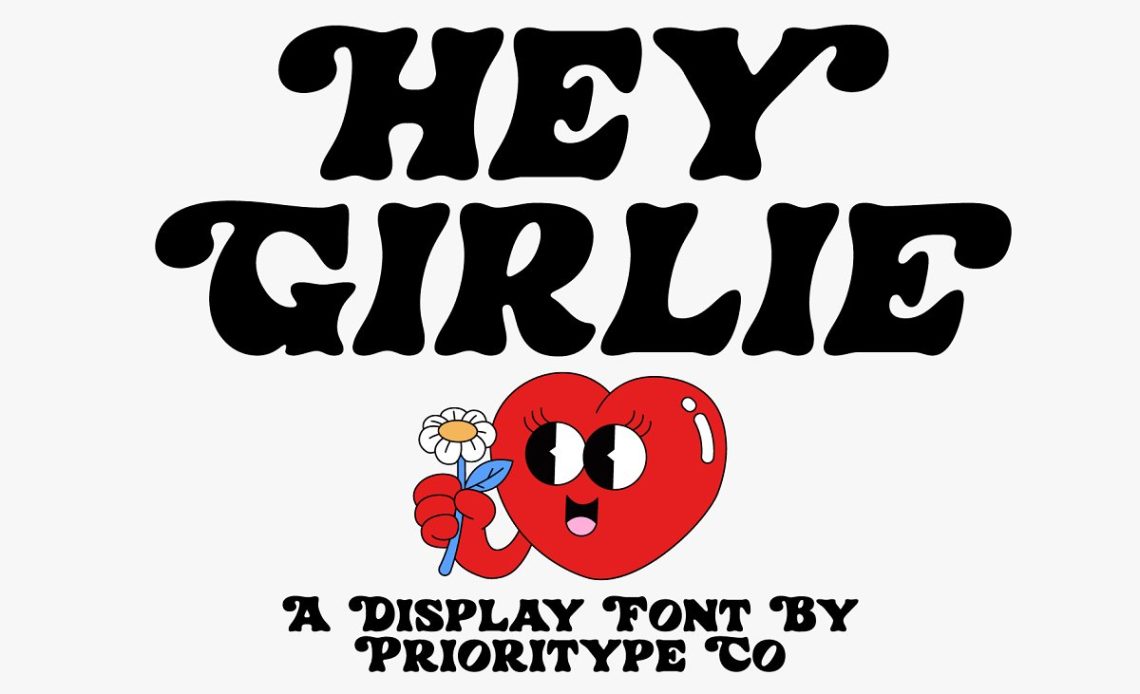
Introducing Hey Girlie - Display Font, the perfect font for logotypes, merchandise designs, posters, titles, stickers, and more. This eye-catching serif font, created by Prio Nurokhim Aji, is a must-have for anyone looking to elevate their design style.
With two styles, regular and slant, Hey Girlie - Display Font is equipped with alternative characters to expand your design possibilities. Its features include uppercase and lowercase letters, numerals, punctuation, multilingual support, and alternates, providing you with endless opportunities to create stunning designs.
Whether you're a professional designer or just starting out, Hey Girlie - Display Font is sure to impress. Its unique style and versatility make it the perfect choice for anyone looking to create designs that stand out from the crowd.